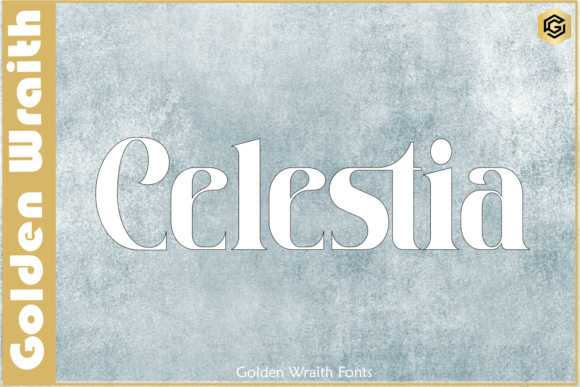
Discover the Timeless Elegance of Celestia Font
In the vast universe of typography, there exist fonts that transcend mere words and evoke emotions, convey sophistication, and add a touch of magic to designs. Celestia Font is one such celestial treasure that has captured the hearts of designers and crafters alike. This serif font is a masterpiece of typographic art, exuding an aura of elegance, refinement, and enchantment.
The Celestial Allure of Celestia
At first glance, Celestia Font appears to be a classic serif font, but upon closer inspection, its unique characteristics reveal a more nuanced and captivating story. The font’s gracefully tapered serifs and ethereal letterforms create a harmonious balance of form and function, making it perfect for sophisticated projects that demand attention to detail. Whether you’re designing a luxury brand logo, a wedding invitation, or a high-end product catalog, Celestia Font is sure to leave a lasting impression on your audience.
Timeless Charm and Elegance
What sets Celestia Font apart from other serif fonts is its timeless charm and elegance. While trends in typography come and go, Celestia remains a constant, evoking a sense of refinement and sophistication that never goes out of style. Its classic appeal is versatile enough to complement a wide range of design aesthetics, from traditional and vintage to modern and minimalist. Whether you’re aiming to create a sense of luxury, nostalgia, or whimsy, Celestia Font provides the perfect foundation for your design.
Designing with Celestia
One of the joys of working with Celestia Font is its incredible versatility. The font’s celestial allure and refined appeal make it suitable for a wide range of design applications, including:
- Branding and Logo Design: Create a lasting impression with Celestia Font’s elegant and sophisticated letterforms, perfect for luxury brands, high-end products, and services.
- Wedding and Event Invitations: Add a touch of romance and whimsy to your wedding invitations, save-the-dates, and event materials with Celestia Font’s ethereal charm.
- Print and Digital Publications: Elevate your publications, such as magazines, catalogs, and brochures, with Celestia Font’s refined appeal and classic elegance.
- Packaging and Product Design: Create eye-catching packaging and product designs that stand out on store shelves with Celestia Font’s unique blend of sophistication and whimsy.
Celestia Font in the World of Crafting
Celestia Font is not just a design tool; it’s also a creative companion for crafters and DIY enthusiasts. Whether you’re making handmade cards, scrapbooking, or creating custom jewelry, Celestia Font can add an extra touch of magic to your projects. Imagine using Celestia Font to:
- Create Custom Stencils: Use Celestia Font to create custom stencils for painting, drawing, or ink-based projects.
- Make Handmade Cards: Add a touch of elegance to your handmade cards and gift tags with Celestia Font’s beautiful letterforms.
- Design Custom Jewelry: Use Celestia Font to create custom jewelry designs, such as pendants, earrings, or cufflinks, that feature inspirational quotes or meaningful words.
In conclusion, Celestia Font is a true gem in the world of typography, offering a unique blend of celestial allure, timeless charm, and elegance. Whether you’re a designer, crafter, or DIY enthusiast, Celestia Font provides the perfect foundation for creating sophisticated and enchanting designs that leave a lasting impression on your audience. With its versatility, refinement, and whimsy, Celestia Font is sure to become your go-to font for a wide range of creative projects.